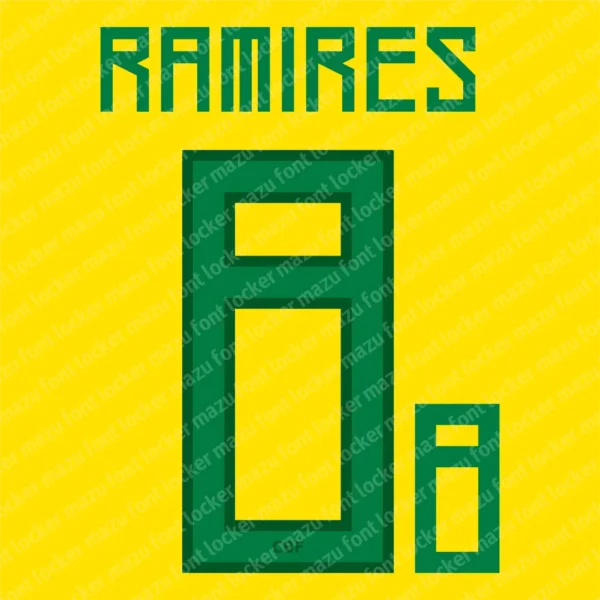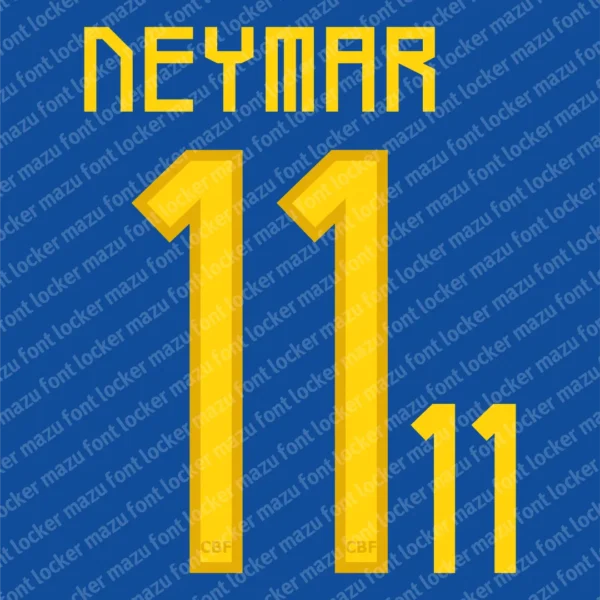
Brazil Copa America 2011 Font Vector – Legendary Canarinho Samba Masterpiece
This premium font captures the commanding, majestic, iron-willed war-machine lettering that embodies the unstoppable Brazilian spirit — delivering raw South American fire, explosive national pride, unbreakable resilience, tactical dominance, and legendary warrior grit that made the continent tremble.
Brazil Copa America 2011 Font Vector – Authentic Canarinho Typeface
The Brazil Copa America 2011 Font Vector is a premium typeface that accurately recreates the official match lettering worn by the Brazil national team during the 2011 Copa América. This high-quality vector font kit captures the bold, vibrant, and iconic typography that represents the pride, passion, and legendary football heritage of the Seleção Brasileira.
Designed for professional designers and passionate Brazil fans, the Brazil Copa America 2011 Font Vector delivers perfect authenticity for creating realistic jersey mockups, fan merchandise, matchday posters, social media graphics, and Brazilian football content. It pairs beautifully with the iconic yellow, green, and blue kit featuring the famous CBF crest.
Why Choose Brazil Copa America 2011 Font Vector
This font stands out because of its sharp vector precision and strong national identity. Every letter and number is crafted to match the exact style used on the players’ shirts during the 2011 Copa América campaign. Whether you are making realistic kit templates or exciting Canarinho content, the Brazil Copa America 2011 Font Vector gives your designs that authentic Brazil look.
The letterforms in the Brazil Copa America 2011 Font Vector are tall, bold, and highly readable. The strokes have a strong, clean weight with excellent edge definition that looks powerful on the back of jerseys while maintaining the classic Brazilian flair and modern strength.
• Full uppercase A–Z and numbers 0–9 in authentic Brazil Copa America 2011 style
• Create highly realistic Brazil Copa America 2011 home and away jersey mockups with accurate lettering
• Produce custom Brazil merchandise with the 2011 aesthetic
The Brazil Copa America 2011 Font Vector is an independently designed typeface package. It is carefully crafted to replicate the official shirt lettering style of the 2011 Copa América season. This font kit is perfect for creative projects, fan edits, nostalgic jersey designs, and custom football graphics. Please note that this is a fan-made design tool and not an official product of the Brazilian Football Confederation.